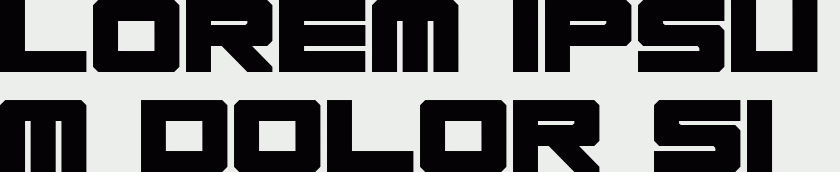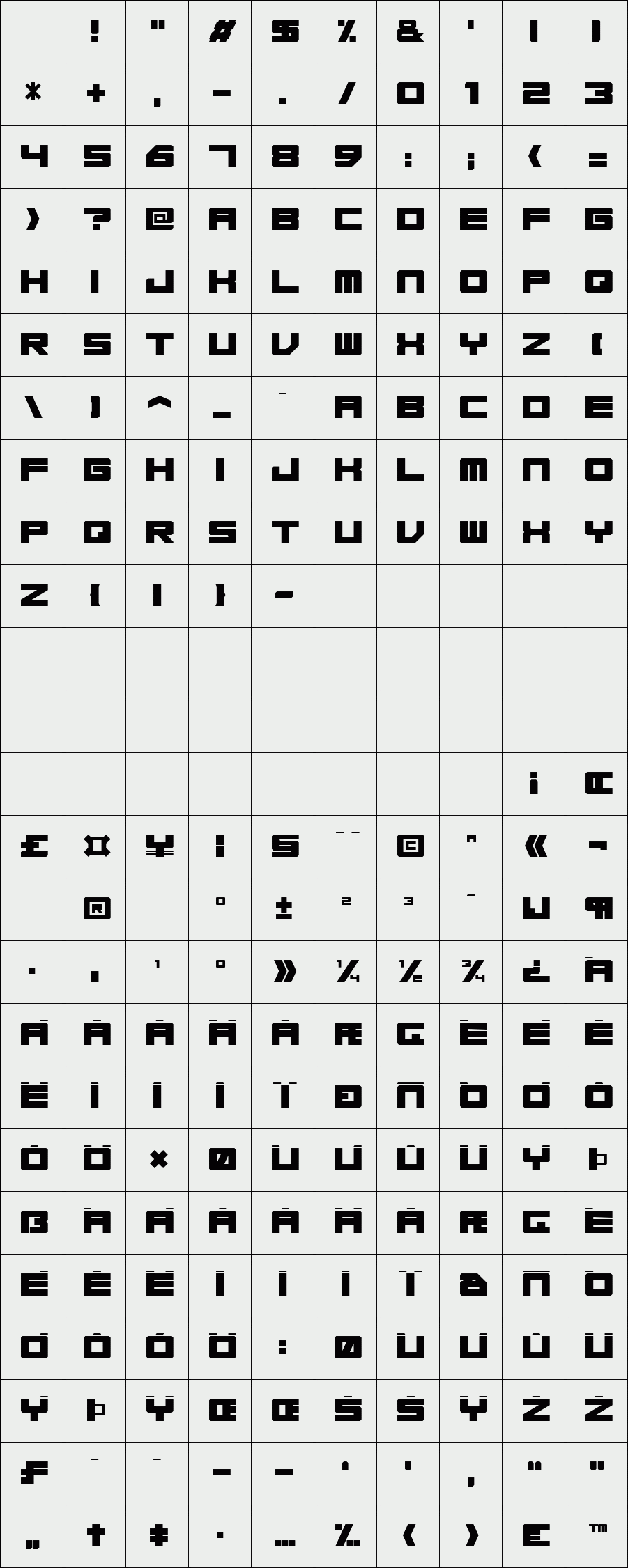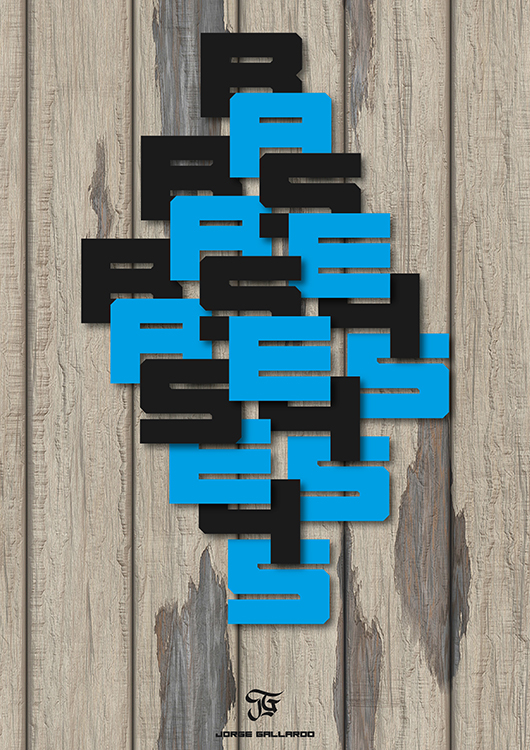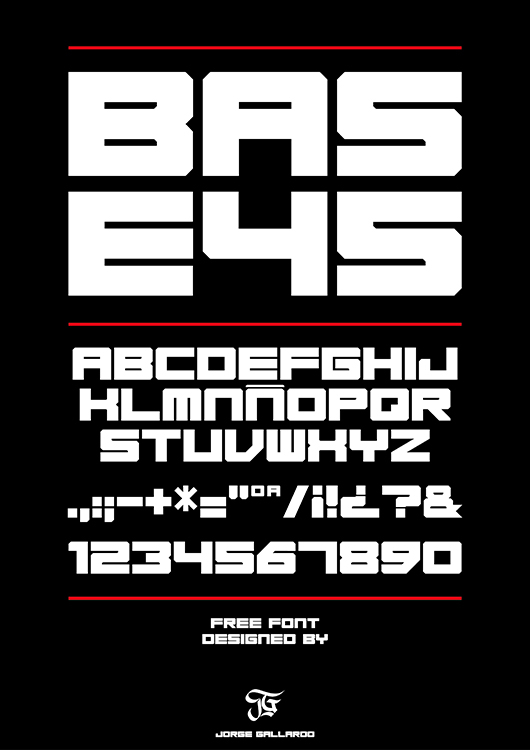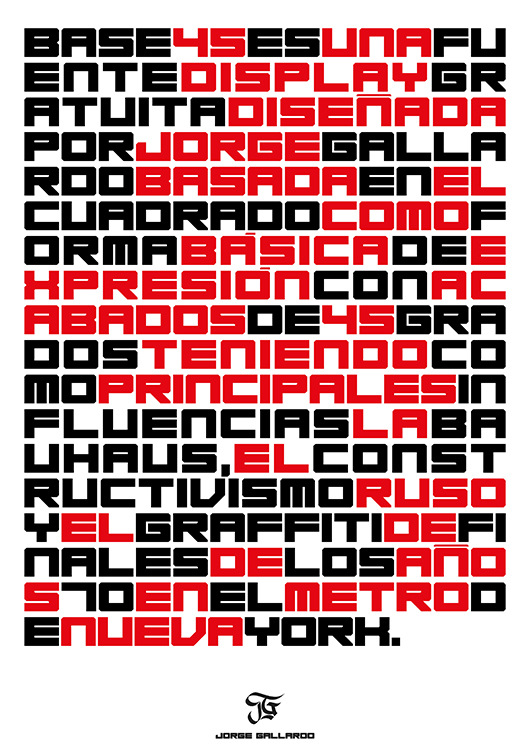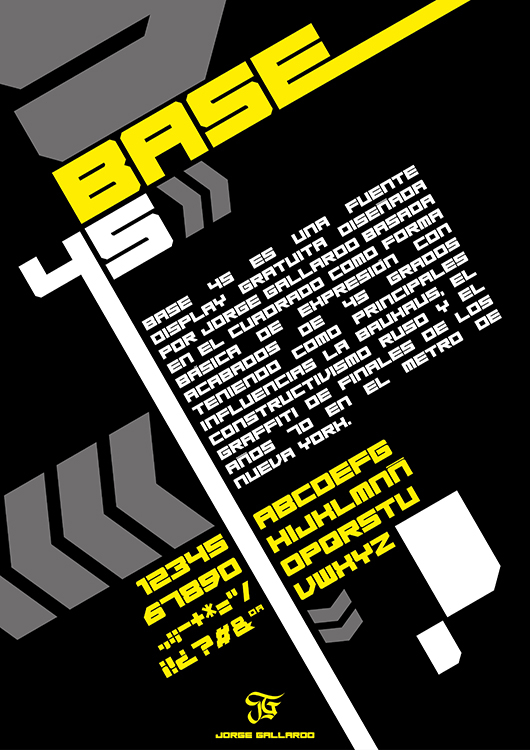
Base 45
Base 45 is a free display font designed by Jorge Gallardo based on the square as a basic form of expression finishes 45 degree having as main influences the Bauhaus, Russian Constructivism and graffiti of the late 70 in the New York subway.